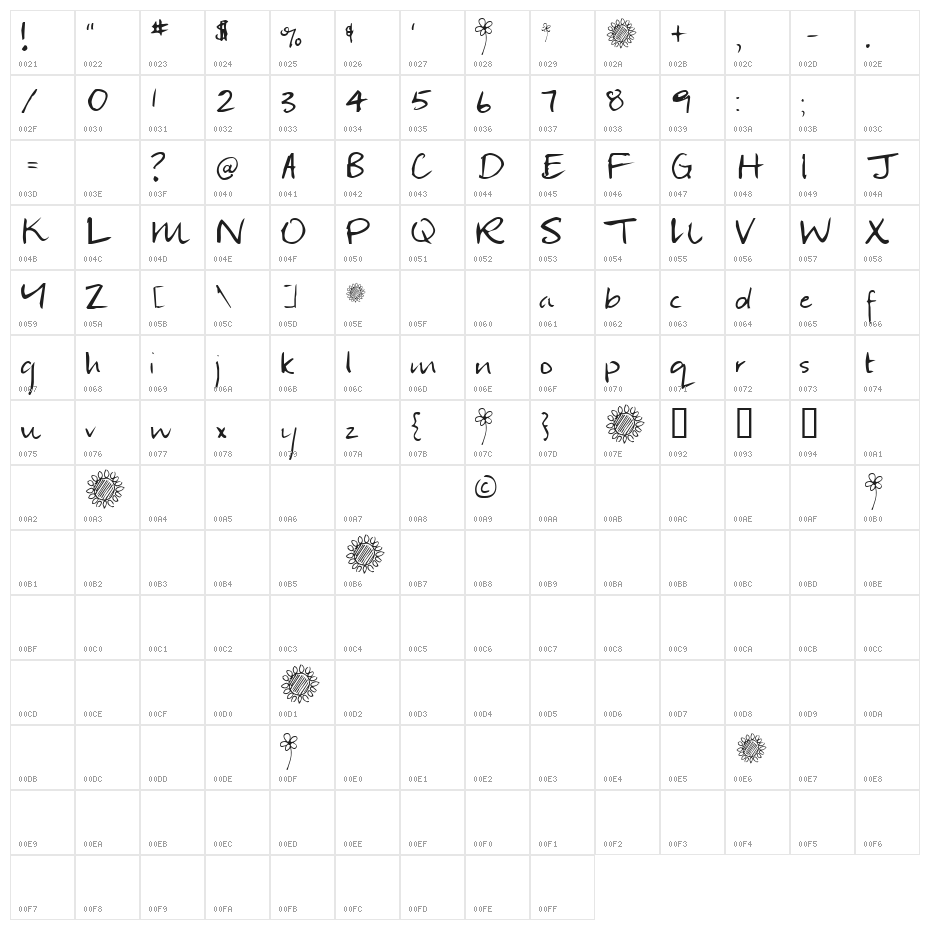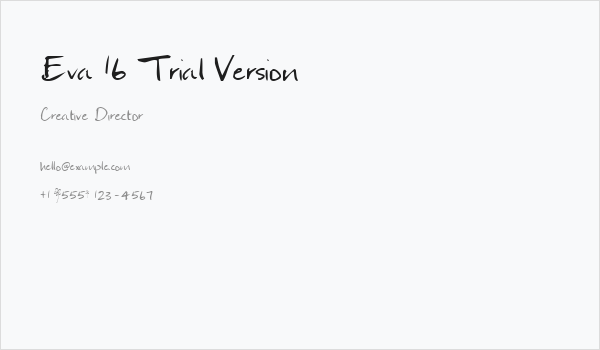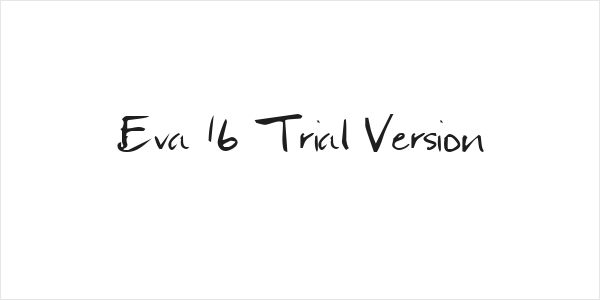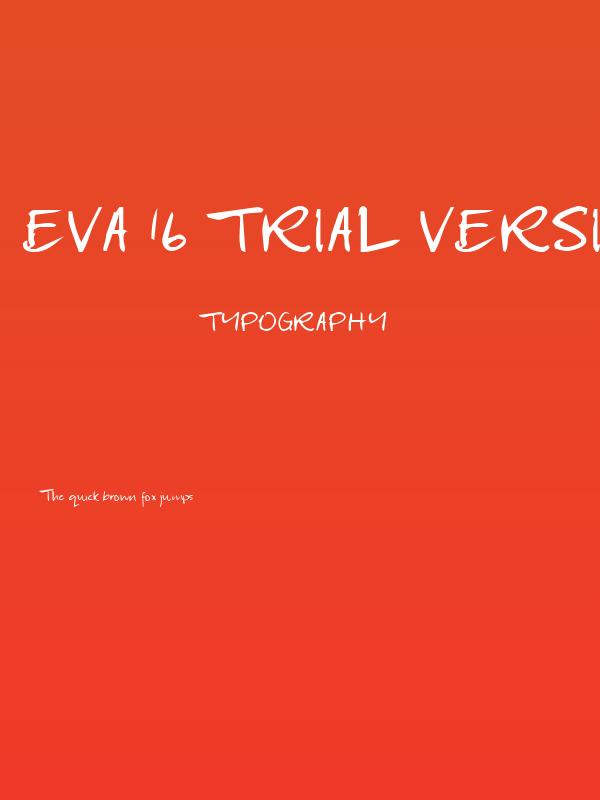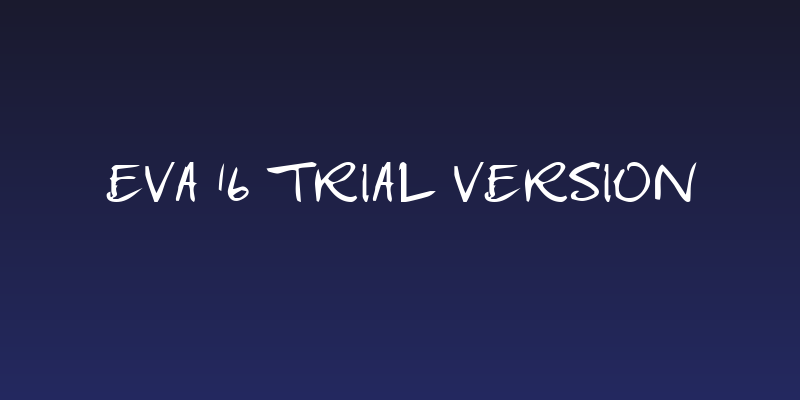
Eva 16 Trial Version Font
Eva 16 Trial Version Description
This font features a playful and artistic handwritten style, characterized by its fluid and dynamic strokes. The uppercase letters are bold and expressive, while the lowercase letters maintain a consistent flow, adding a touch of elegance. The numerals are distinct and easy to read, with a slightly whimsical touch. Special characters are creatively designed, incorporating unique elements like flowers and sun motifs, enhancing the font's decorative appeal. This font exudes a sense of creativity and spontaneity, making it ideal for projects that require a personal and artistic touch.
| Proposed Projects | Ideal for greeting cards, invitations, artistic posters, and creative branding projects. |